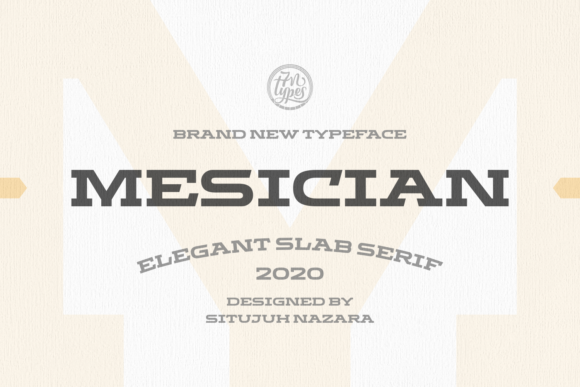
Step into a world of typographic brilliance with Mesician, a breathtaking slab serif font family that exudes both boldness and sophistication. Its chunky, extended characters demand attention, making it the perfect choice for crafting eye-catching logos, branding, packaging designs, and beyond.
Mesician's masterful design is a testament to its versatility. Its robust strokes command presence, while its elegant serifs add a touch of refinement. This font family is not just a tool; it's an expression of creativity, empowering you to make a statement with every word you write.
Indulge in the boldness of Mesician, and let your designs shine with unparalleled impact. Its extended characters lend themselves to powerful headlines that grab attention and leave a lasting impression. Unleash the sophisticated side of Mesician in branding and packaging designs, where its refined serifs exude a sense of luxury and allure.